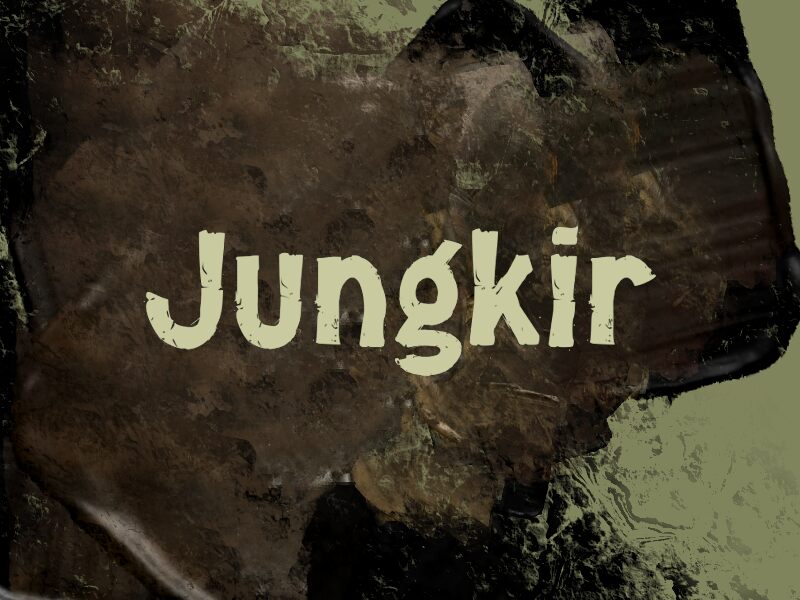
j Jungkir font, designed by wep, showcases a captivating visual that transmits a rustic feel. The letters have imperfect forms, not meeting all the edges and angles, gaining an imperfect appearance. Each unique character feels handcrafted with a strong historical impression that stems from its worn eroding look. Get your hands on this free font and enjoy a distorted and eroded effect that distinguishes your titles and covers.
The imperfect nature of j Jungkir font makes it informal and approachable. The jerking letter shapes are the perfect addition for parody logos, letterheads, invitation cards, apparel design, games, television show titles, etc.
Jungkir is a versatile free font designed for various creative projects. Its unique flair makes it ideal for headings, logos, and promotional materials. With an easy font download, you can incorporate this stylish typeface into your designs effortlessly. The clean lines and artistic style ensure that your text stands out while maintaining readability.